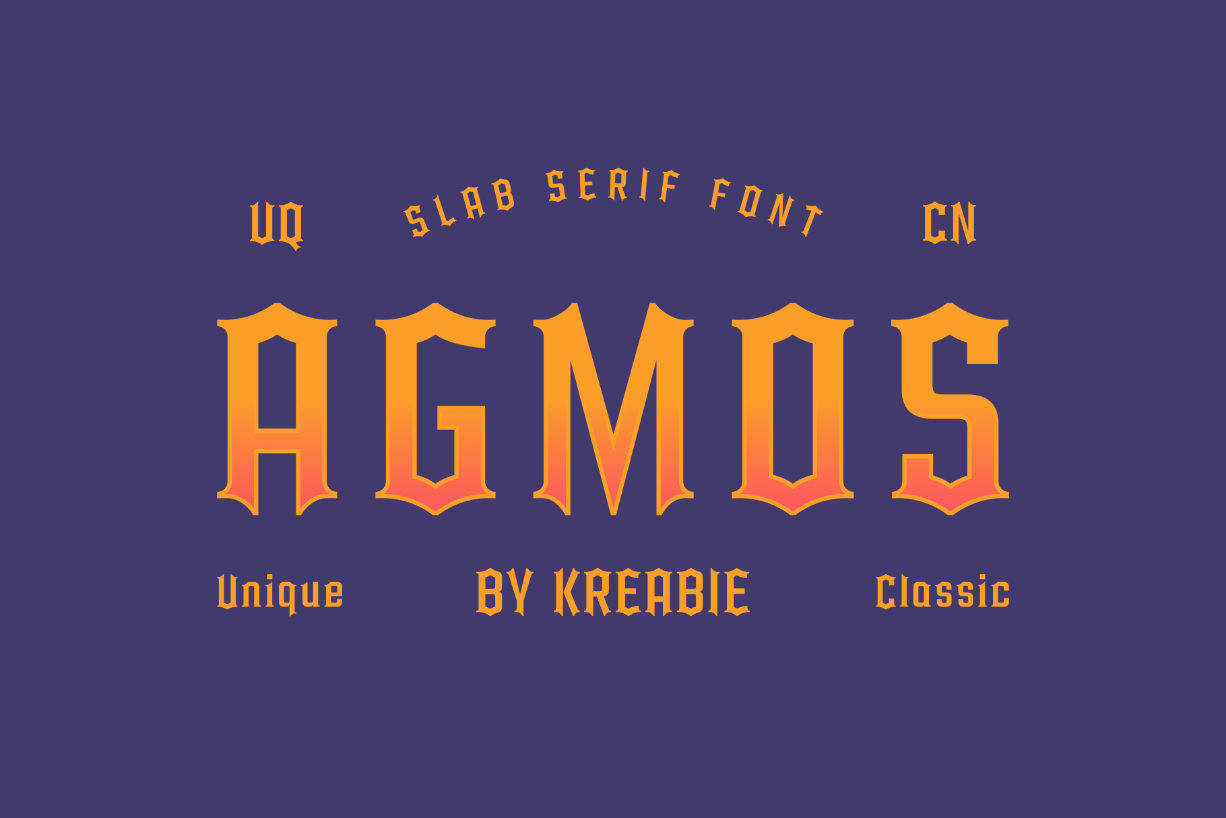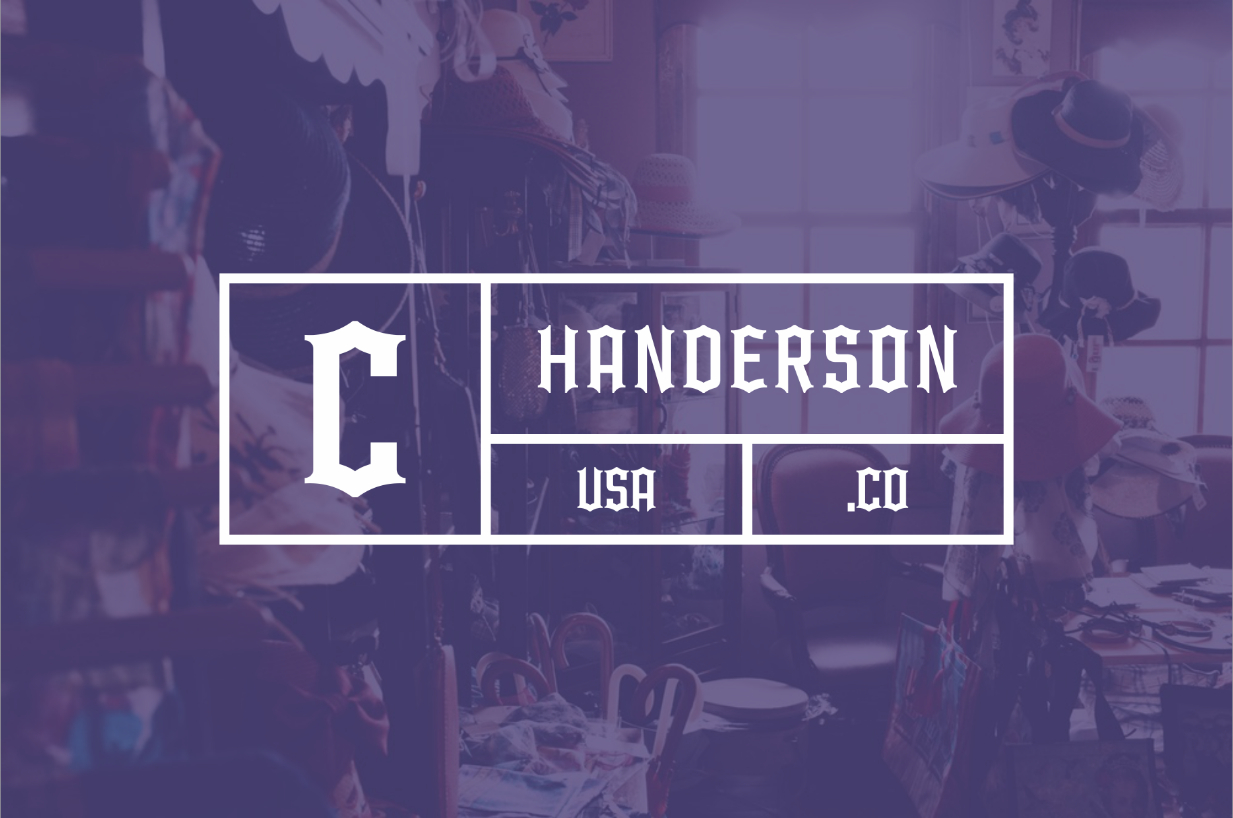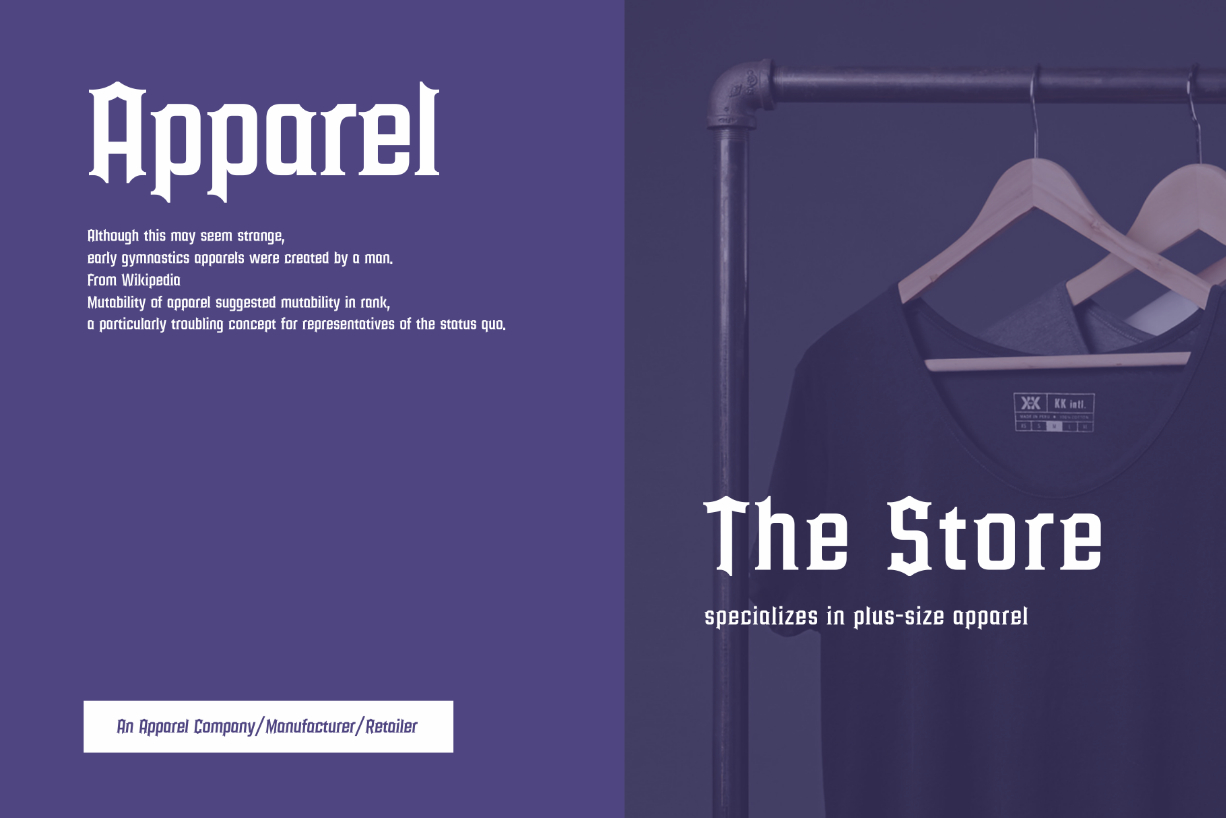
About Agmos Font
Agmos is a cool, bold and uniquely designed blackletter font. This font is imposing and features uniquely shaped letters, and as a result, it will easily match a wide range of creations that require a distinct touch.